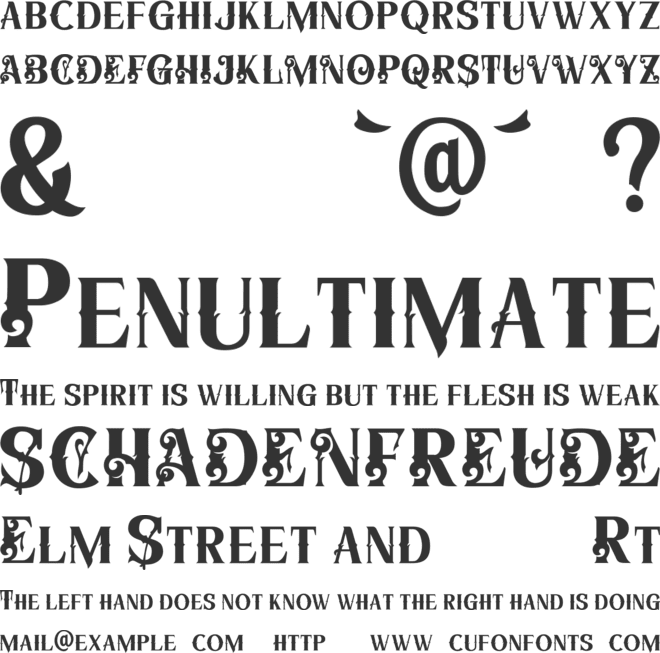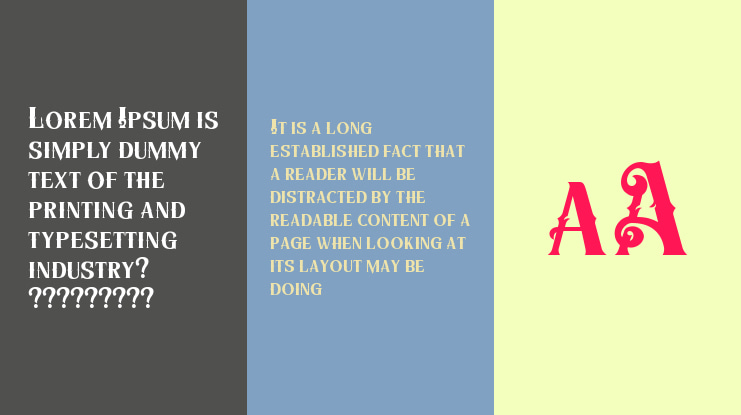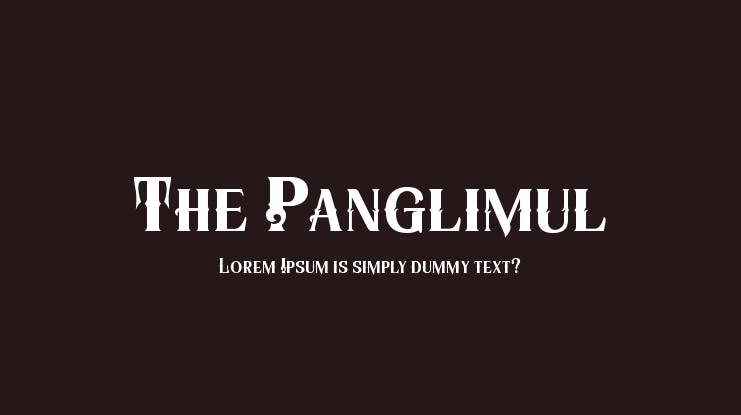
The Panglimul Font
Ahmad Ja'far Shadiq
The Panglimul inspired by victorian style and serif. This typeface make your design have vintage style. You can use this font to create design for product label, store name, poster, mug design, wedding sign, apparel, ect.